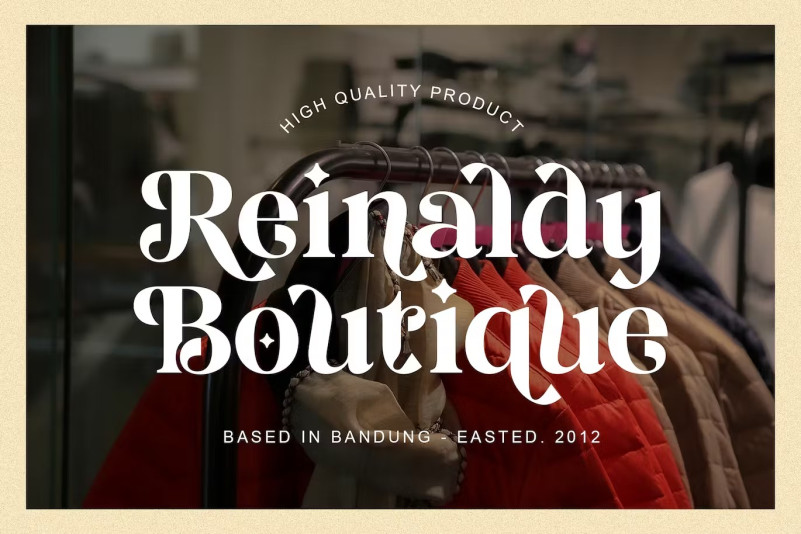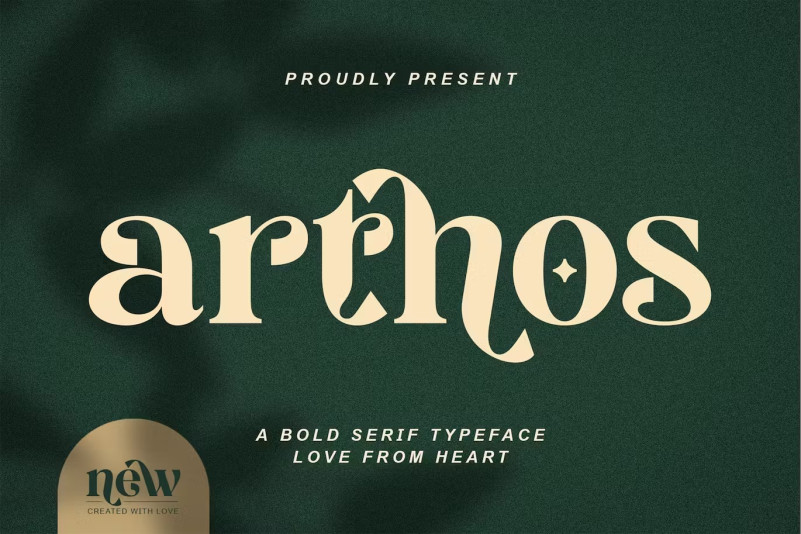
Arthos Font
Arthos Font is a bold, minimalist, elegant, and modern vintage font with beautiful ligatures, tons of special alternate glyphs, ornaments, and multilingual support. It’s a very versatile font that works perfectly in both large and small sizes. Perfect for branding projects, Logo design, apparel brands, product packaging, magazine headers, or simply as a stylish text overlay to any background image.